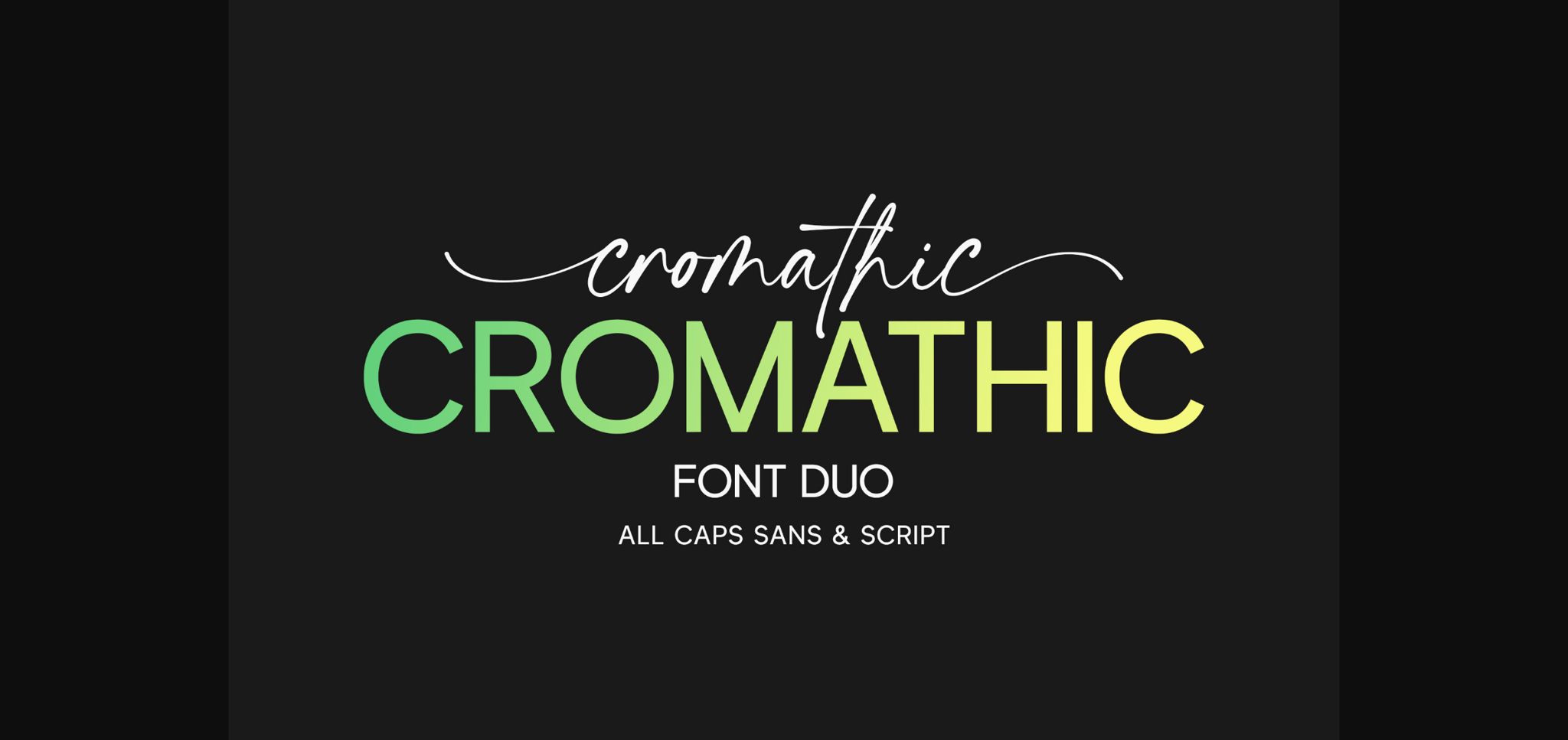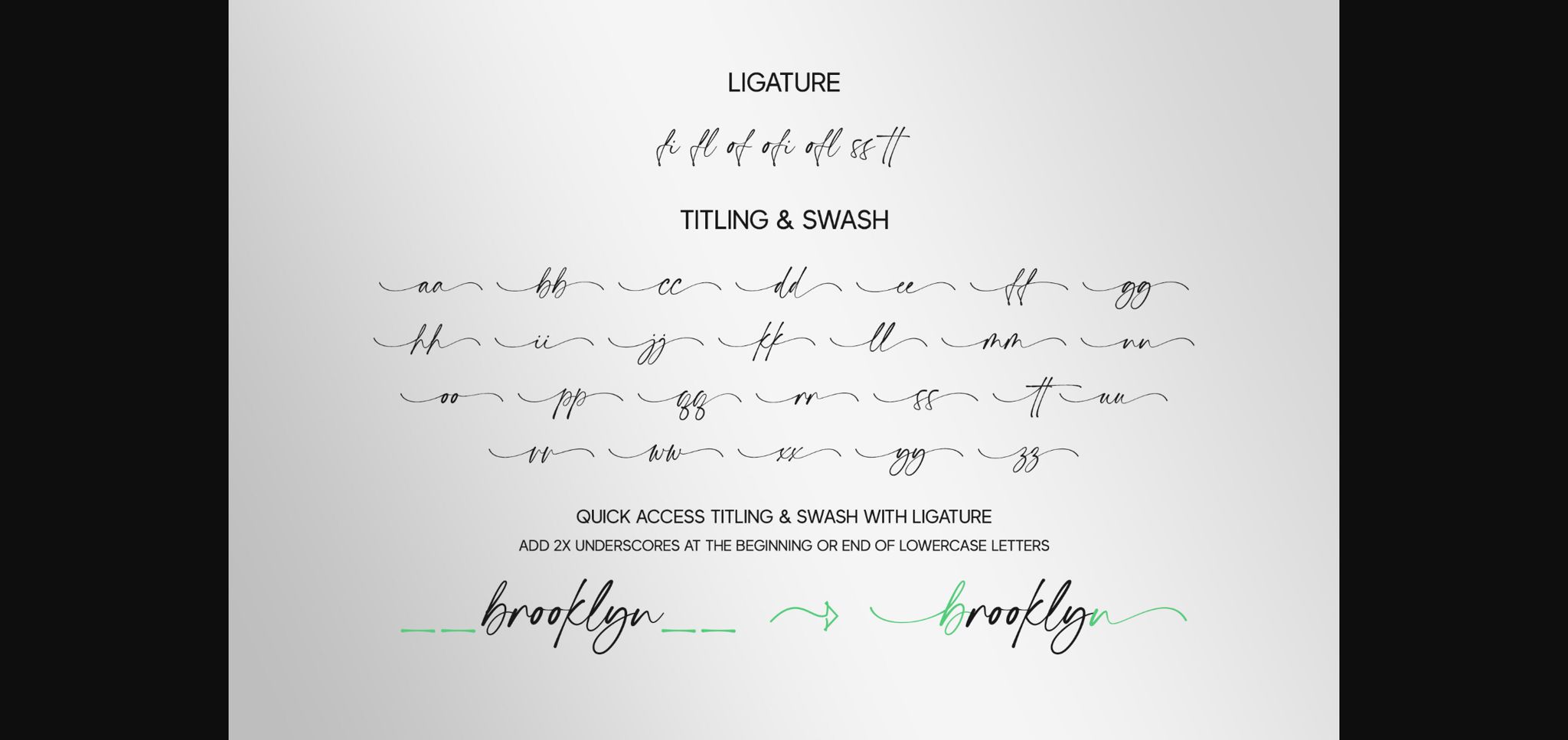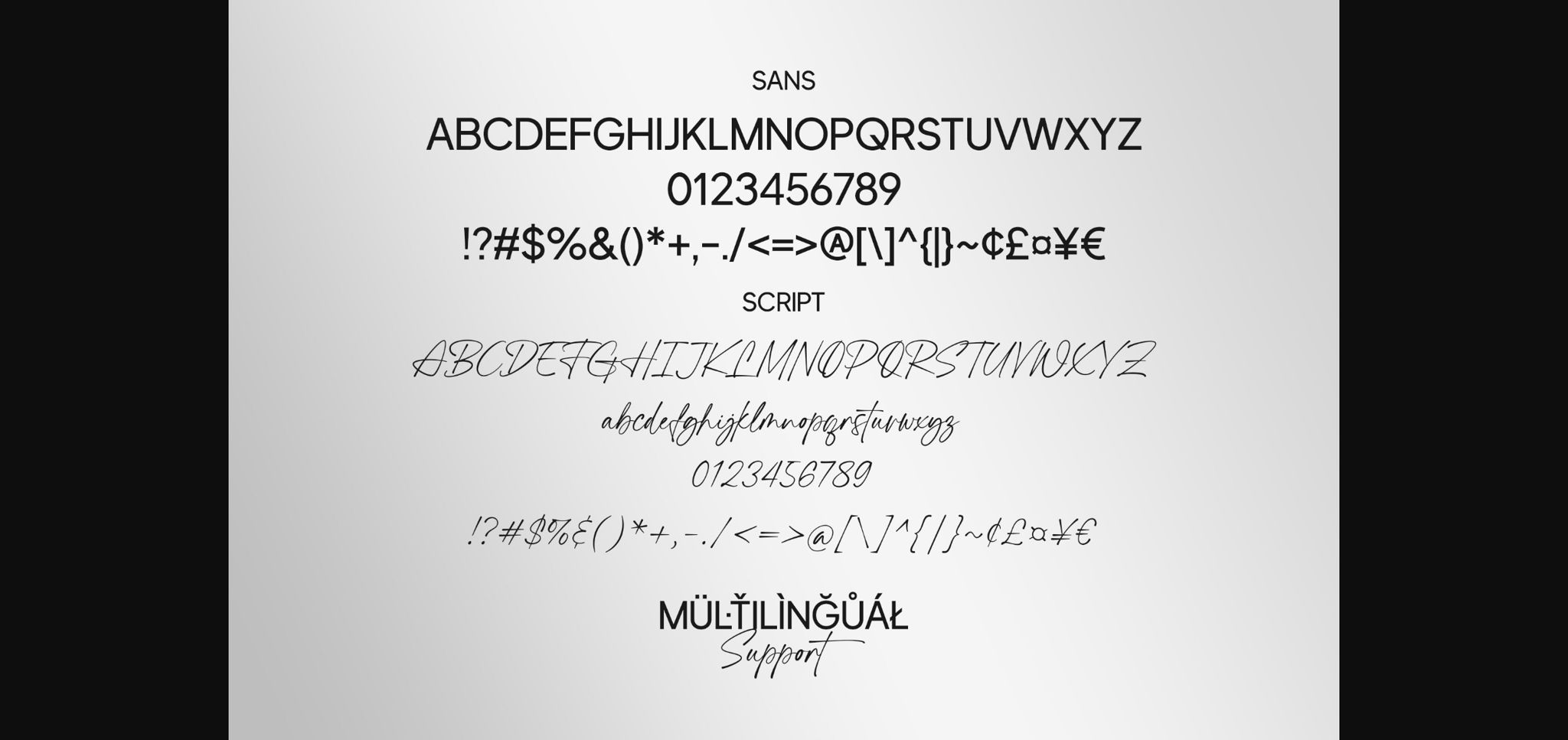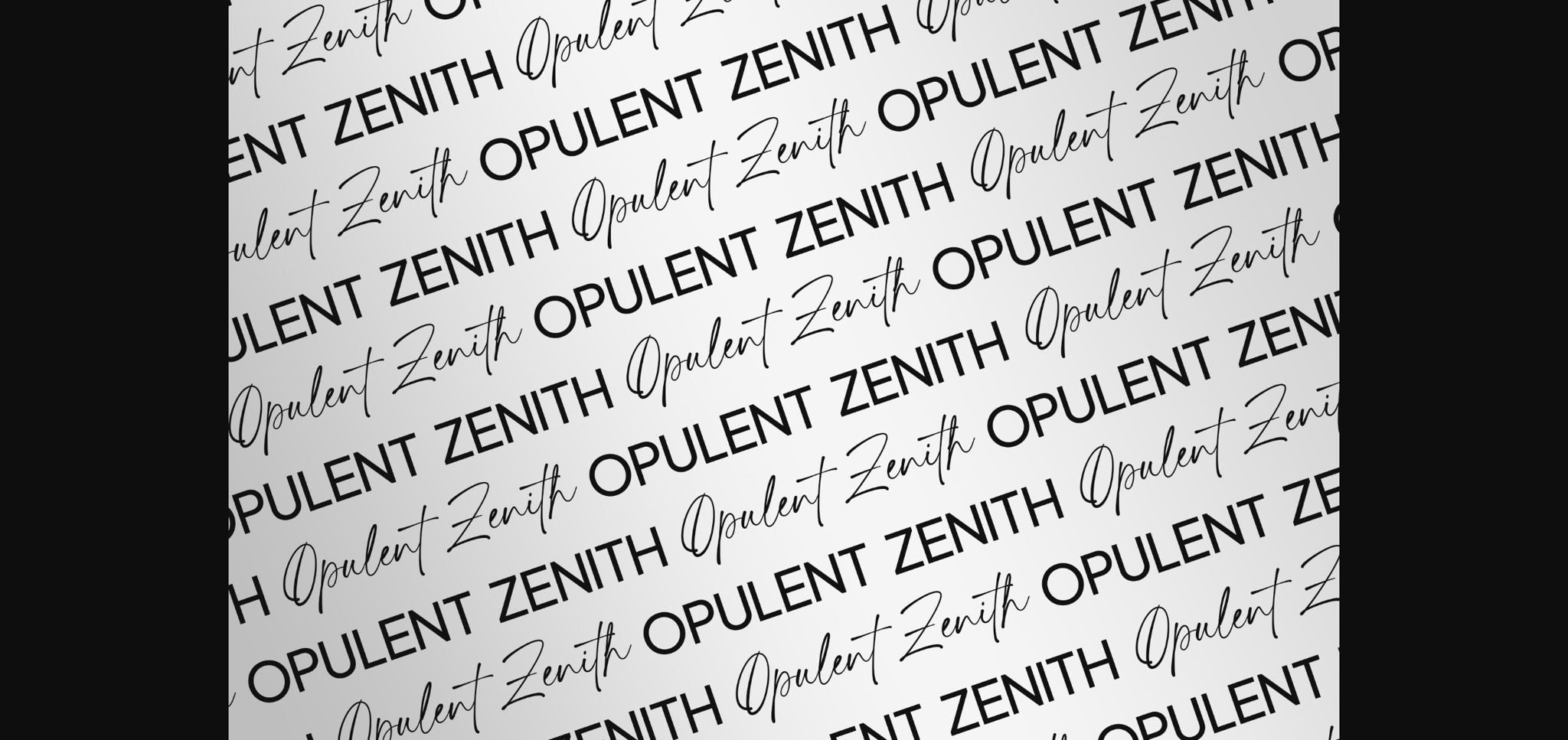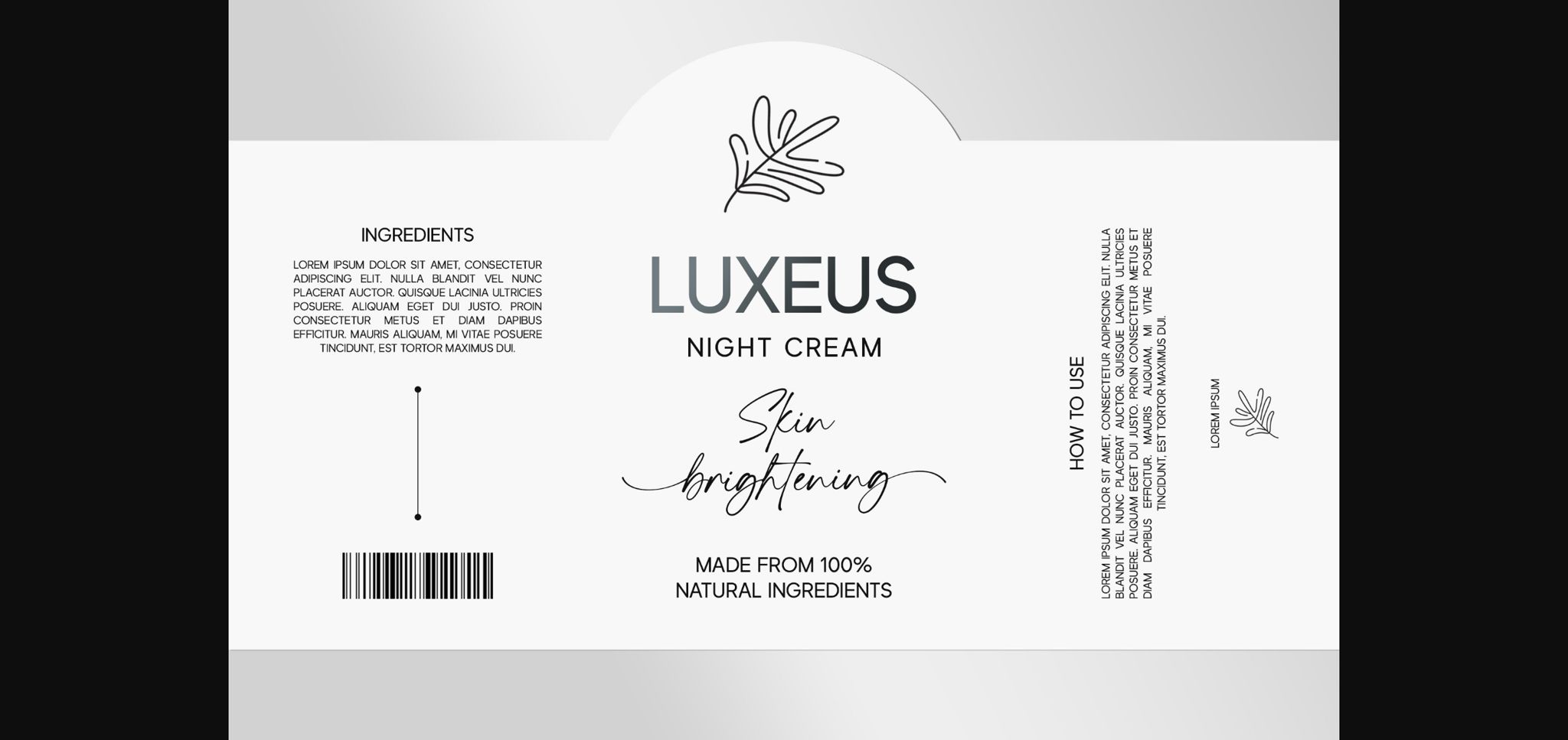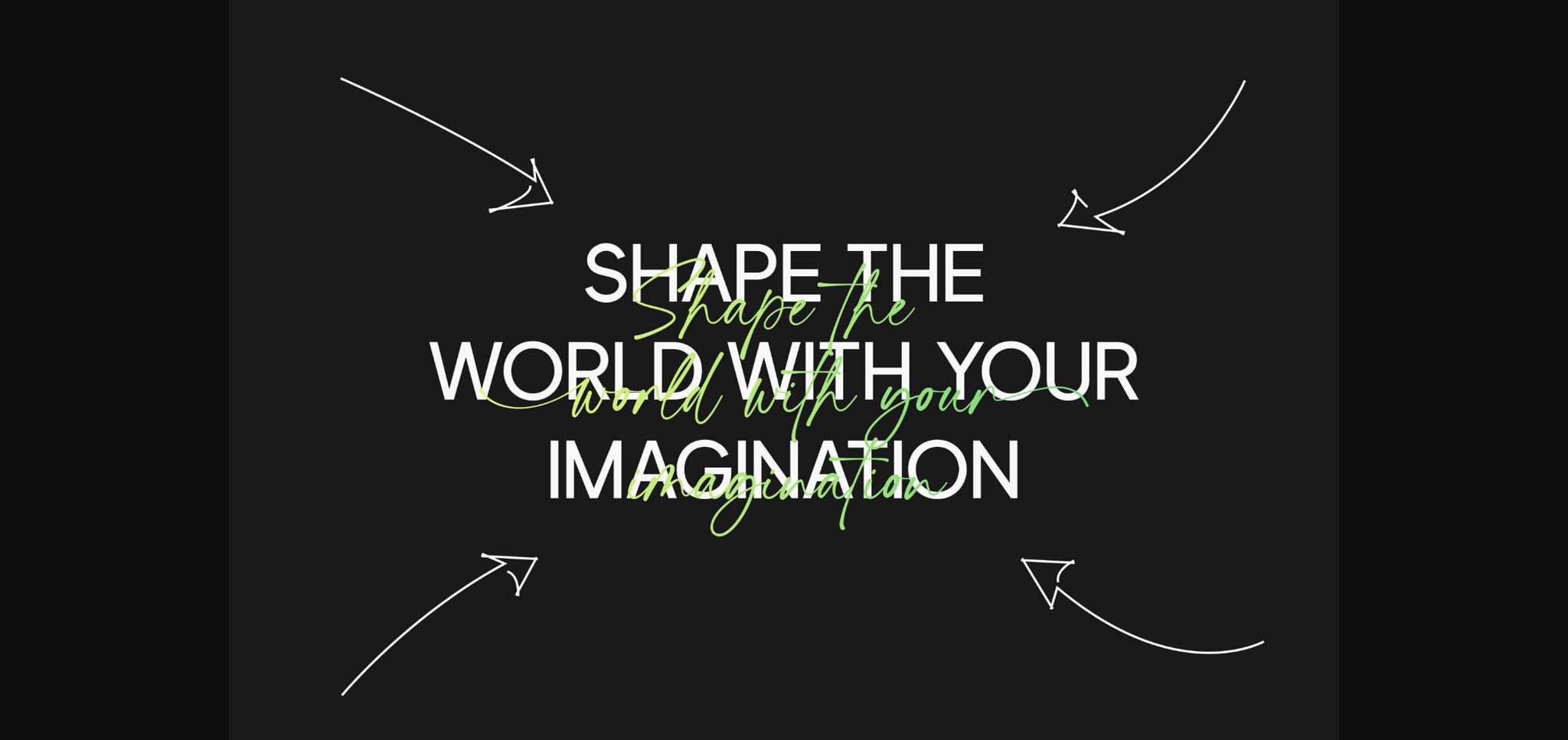
About Cromathic Font
Cromathic is a font duo that combines a modern all-caps sans-serif with an elegant script, providing a versatile design with a minimalist yet appealing impression. This combination is suitable for various design projects such as logos, branding, posters, labels, product packaging, and invitations. With a balanced contrast, Cromathic offers design flexibility to highlight messages with a clean and attractive style.